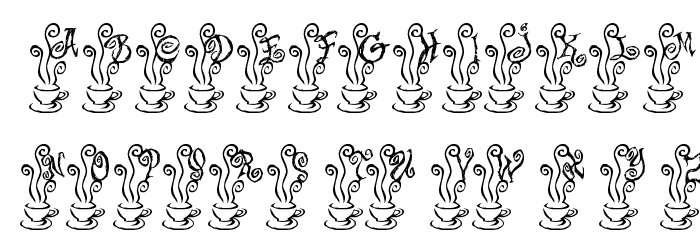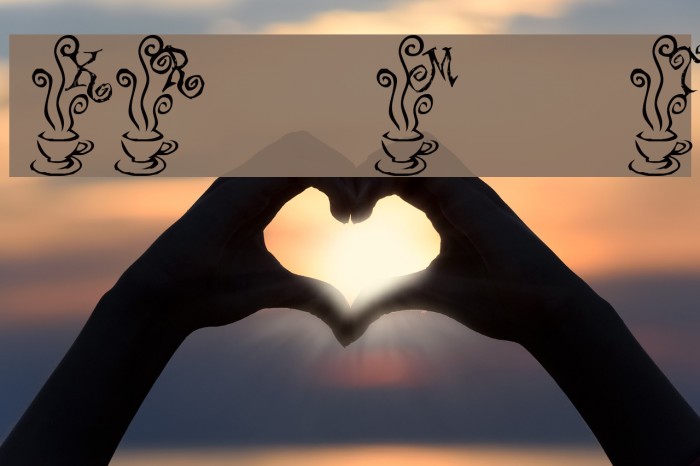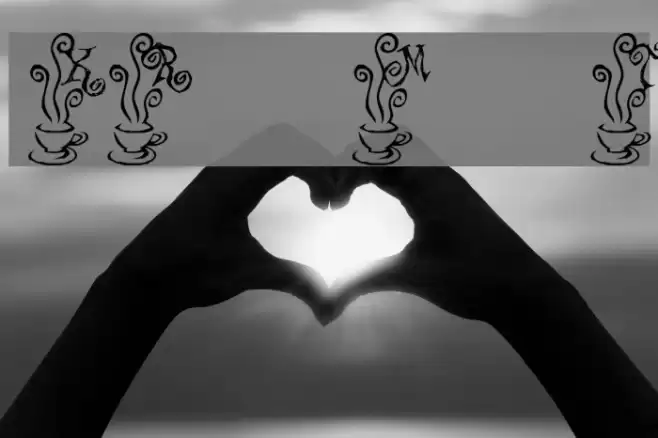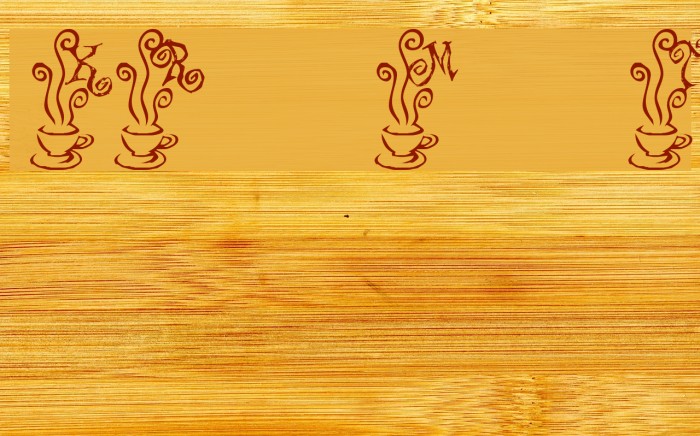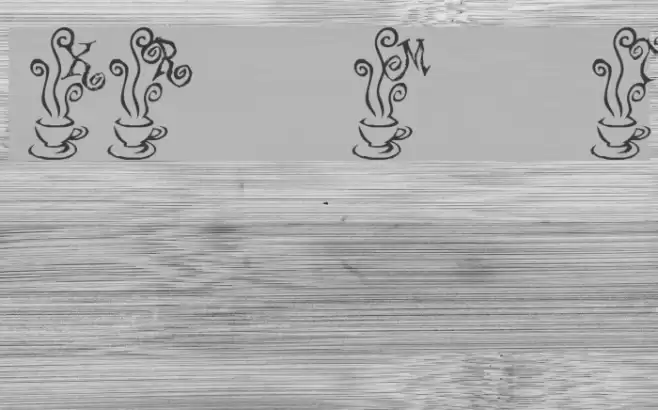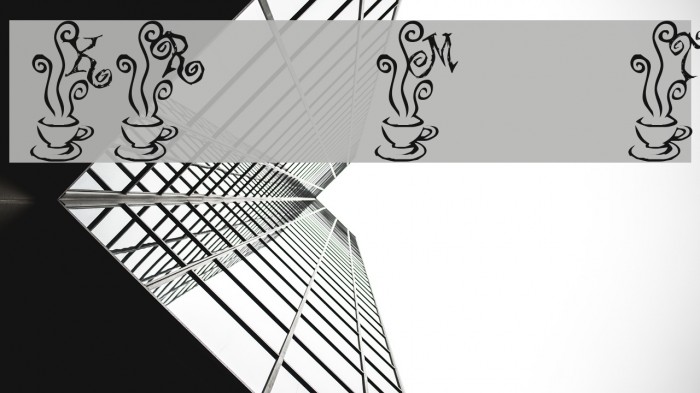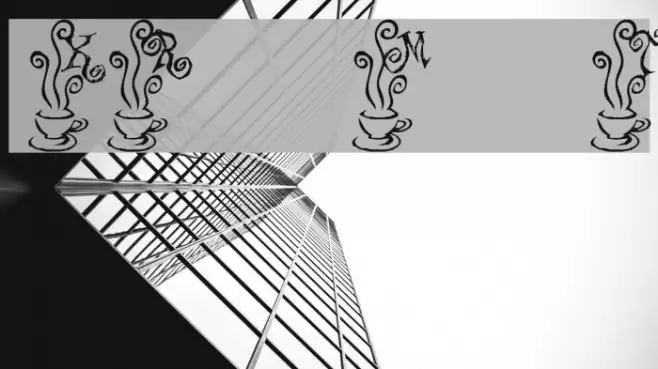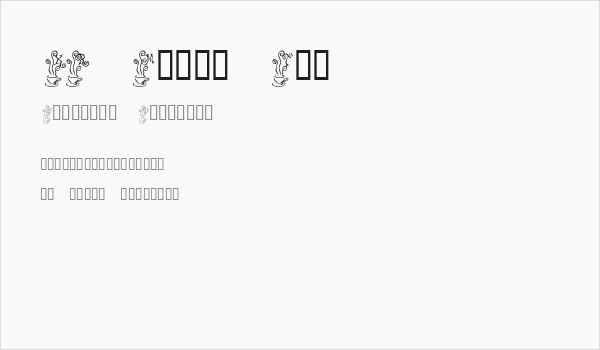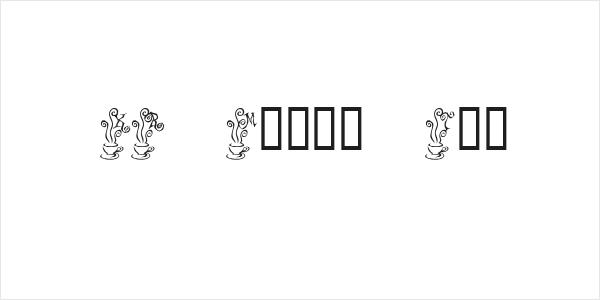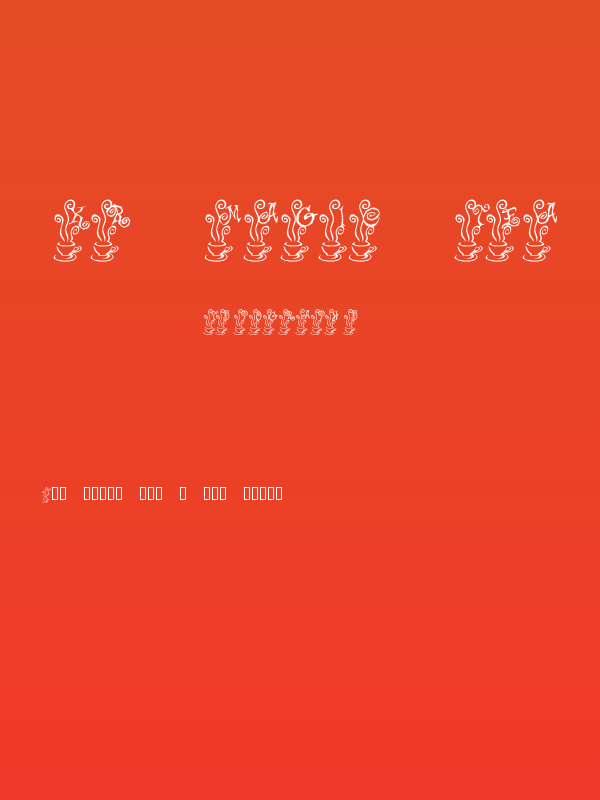
KR Magic Tea Font
KR Magic Tea Description
This whimsical and decorative font features letters that appear to be formed from swirling steam rising from a teacup. Each character is intricately designed with curvy, flowing lines that give a sense of movement and elegance. The playful nature of the font is emphasized by its unique integration of a teacup base, making it ideal for projects that require a touch of fantasy or charm. The font's artistic style is both eye-catching and imaginative, perfect for creating a magical atmosphere in any design.
| Proposed Projects | Ideal for tea shop branding, fantasy book covers, whimsical invitations, and themed event posters. |